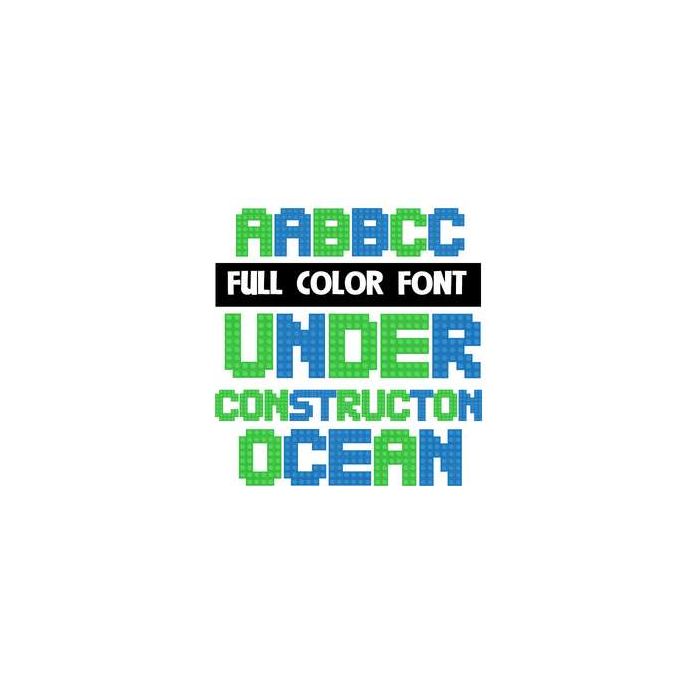
This full-color features construction bricks made from traditional blue and green colors. This font works best for titles, displays, posters and more. Please note color fonts will show as black in non compatible programs. This font type is compatible with Silhouette Studio.